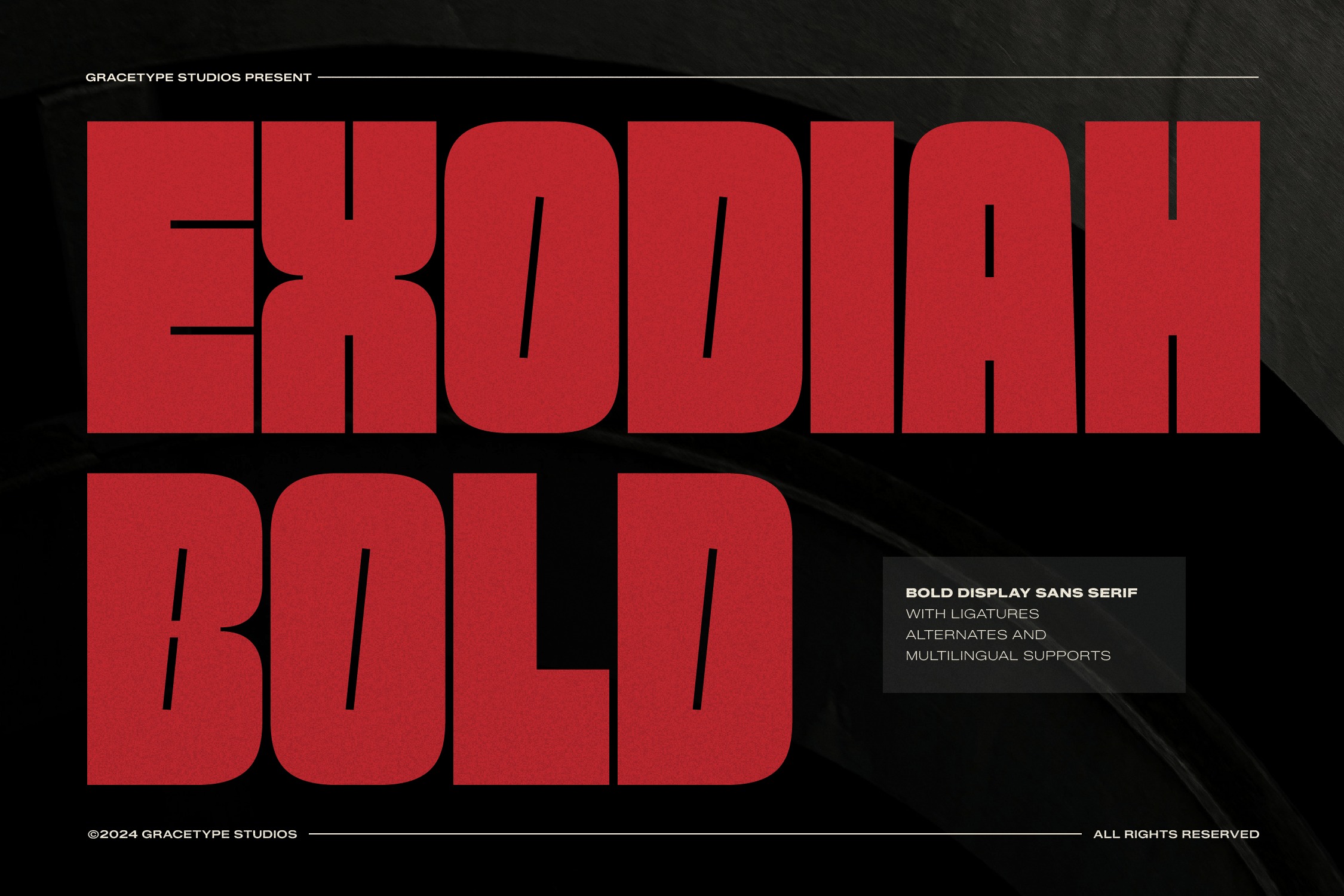
Exodiah – Bold Sans Serif Font
Exodiah – Bold Sans Serif Font is a stylish typeface that enhances visual appeal and works effortlessly in many design contexts. Exodiah | Bold Display Sans Serif, from Gracetypestudio, suitable for any projects such as: logos, branding projects, homeware designs, product packaging, mugs, quotes, posters, shopping bags, t-shirts, book covers, name card, invitation cards, greeting cards, label, photography, watermark, special events, and all your other lovely projects that need a Sans Serif taste.